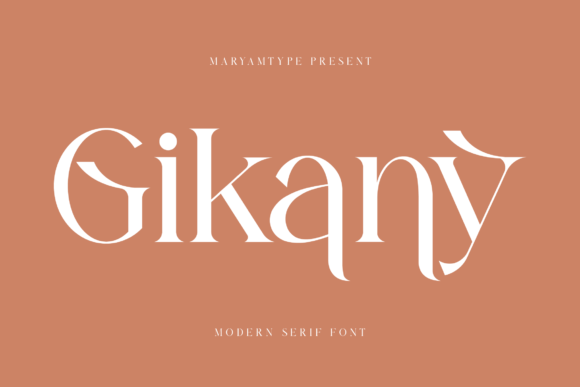
Behold Gikany Font, the serif font poised to revolutionize your design aspirations. With its elegant curves and fashionable flair, this font captivates hearts, leaving an unforgettable impression on your audience. Whether crafting luxury logos, stunning invitations, or captivating social media posts, Gikany Font elevates your designs to unparalleled heights.
Immerse yourself in the world of elegance and sophistication, where Gikany Font reigns supreme. Its delicate strokes and graceful serifs exude a timeless charm, adding a touch of luxury to every project. From wedding invitations that whisper romance to business cards that command attention, Gikany Font transforms your designs into masterpieces.
With its PUA encoding, unleashing Gikany Font's full potential is effortless. Access a treasure trove of glyphs and ligatures with a few simple clicks, unlocking endless creative possibilities. Open the door to a world of visual enchantment where imagination knows no bounds.
Designers and creatives, rejoice! Gikany Font is your gateway to creating designs that inspire, captivate, and leave a lasting impression. Its versatility knows no limits, adapting seamlessly to a wide range of projects. From branding and packaging to web design and social media graphics, Gikany Font elevates your vision, transforming ordinary designs into extraordinary works of art.
Indulge in the beauty of Gikany Font and watch as your designs blossom into stunning creations. Experience the joy of crafting projects that evoke emotion, convey messages with clarity, and leave your audience spellbound. Embrace the power of Gikany Font and unleash your creativity like never before. Your designs deserve the best, and Gikany Font delivers nothing less.